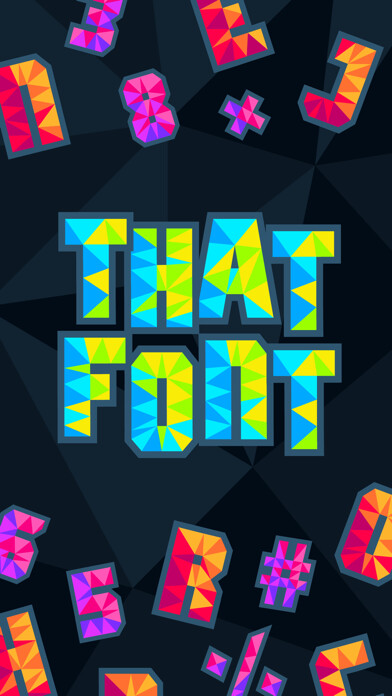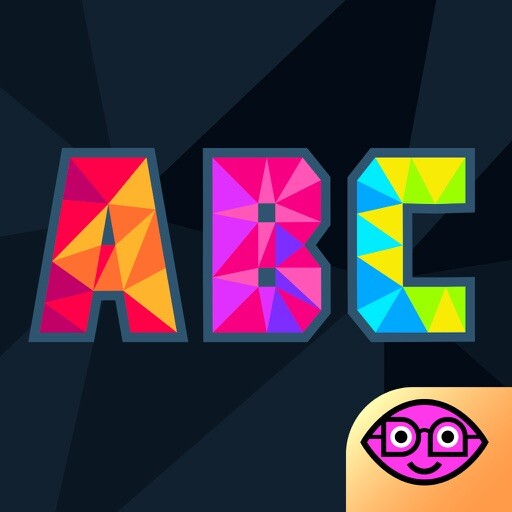
Create your own ridiculous custom messages with That Font, a vibrant custom font sticker pack.
With a character set including the alphabet and several symbols in multiple hues along with different bubble sizes, you can put together your own wildly vibrant messages to get the attention of your friends and family.
Your friends and family will likely be sitting in suspense as they watch each letter appear, trying to guess what youre about to say.
You can also send individual letters and send messages character by character, or combine the letters of That Font with your other favourite sticker apps.
You and your friends can even work together to create a message and make a game out of it!
Send your next funny, important, or non-sensical message with That Font.,